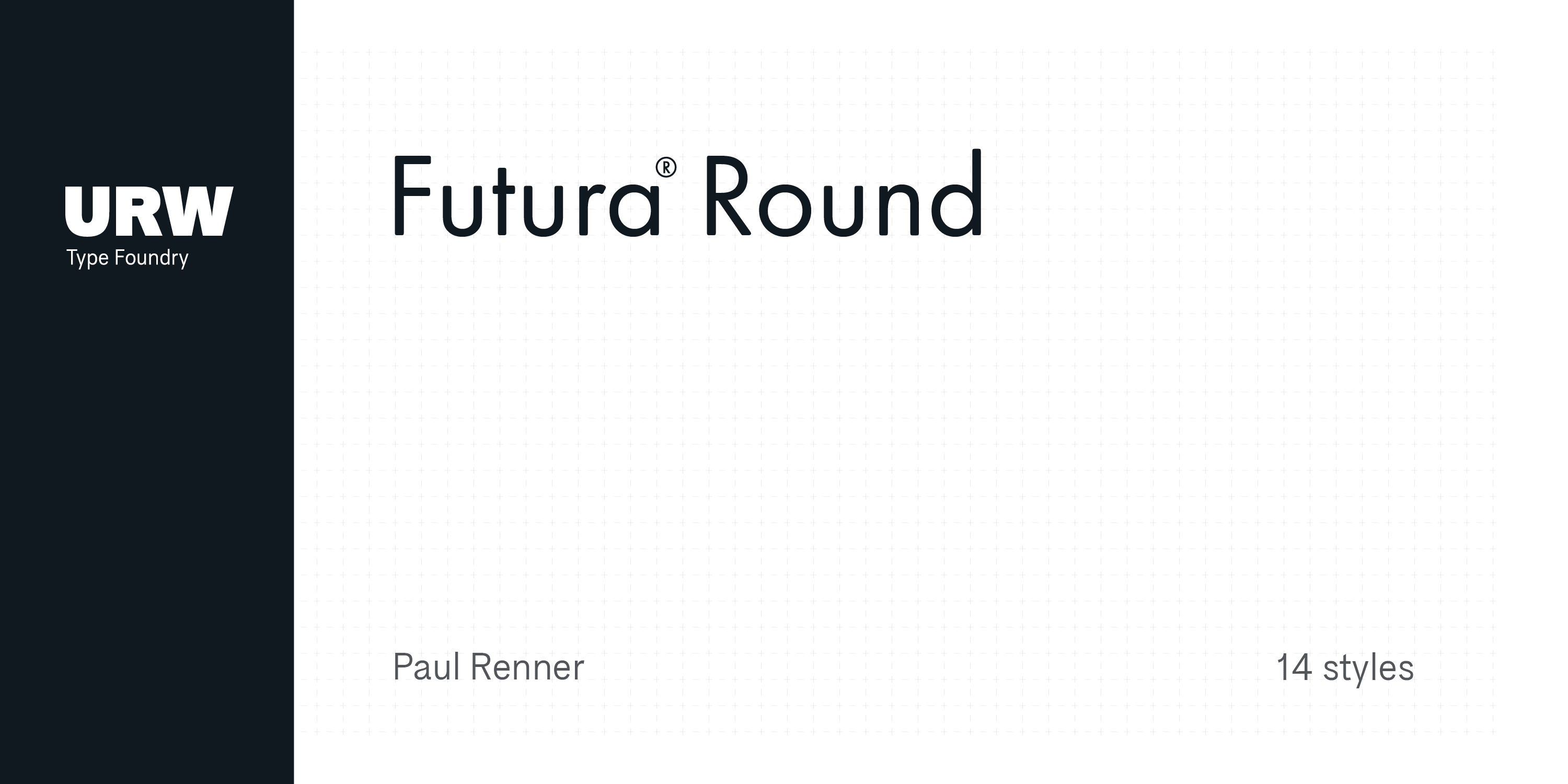
Futura Round Font Free Download is a sleek, geometric sans-serif typeface characterized by its smooth, rounded edges. This font combines the timeless appeal of the classic Futura design with a softer, friendlier appearance, making it ideal for branding, packaging, advertising, and digital interfaces.
Known for its clean and modern look, Futura Round adds warmth and approachability to your designs without sacrificing professionalism. Its balanced letterforms ensure excellent legibility across various sizes and formats, from headlines to body text.